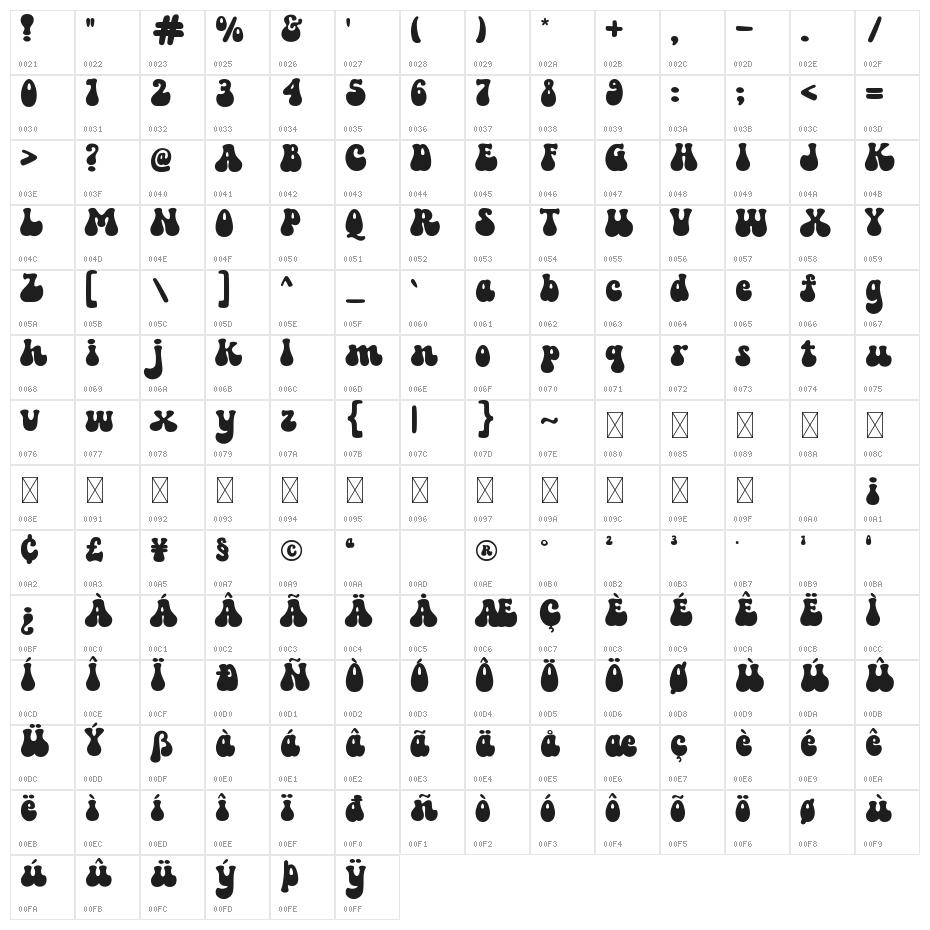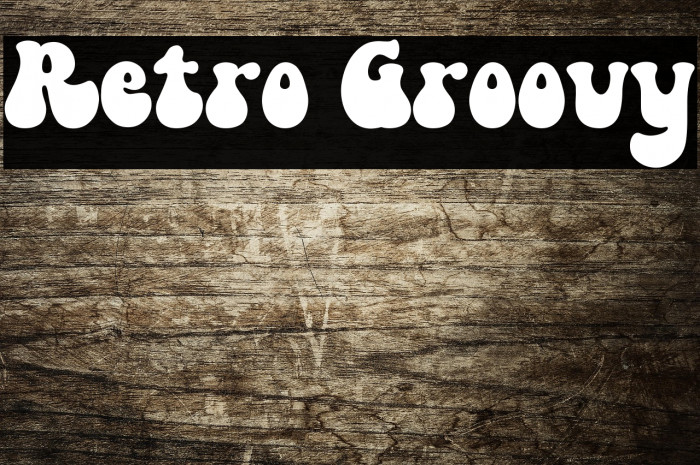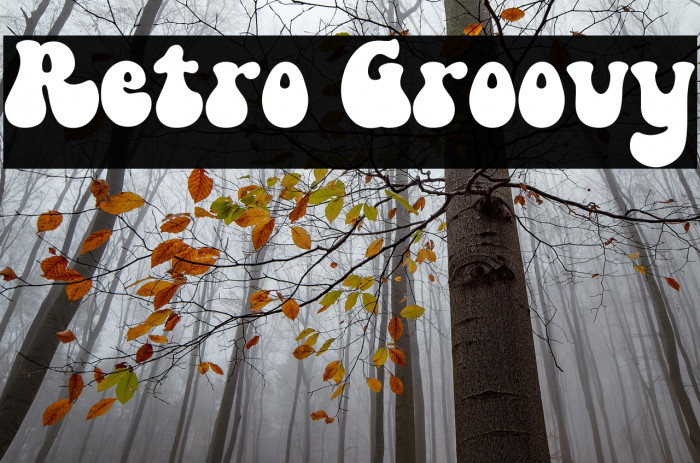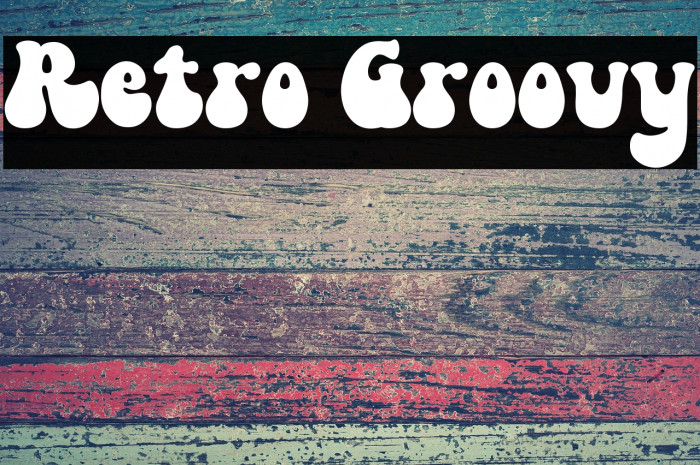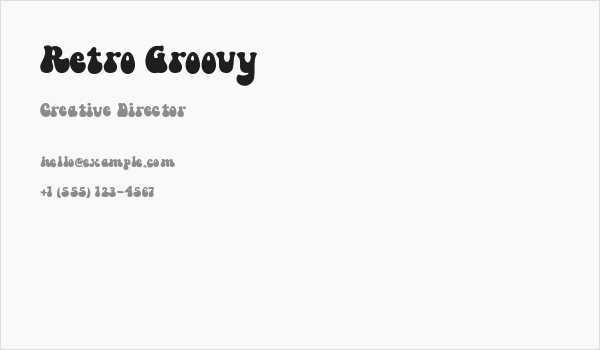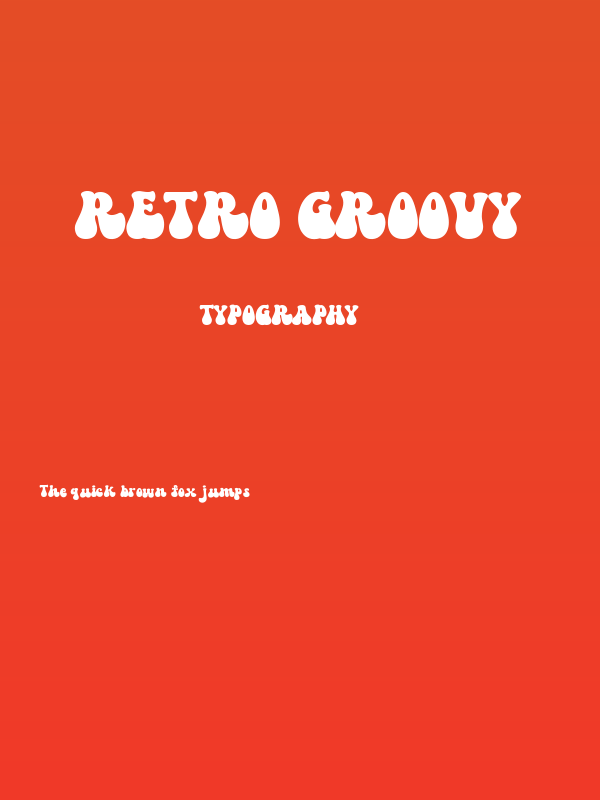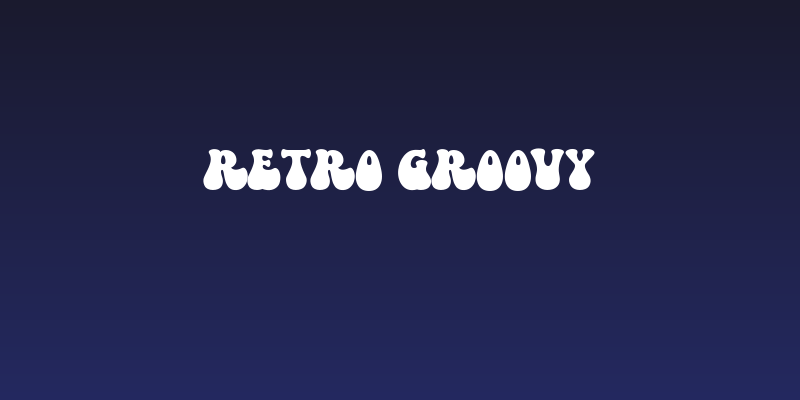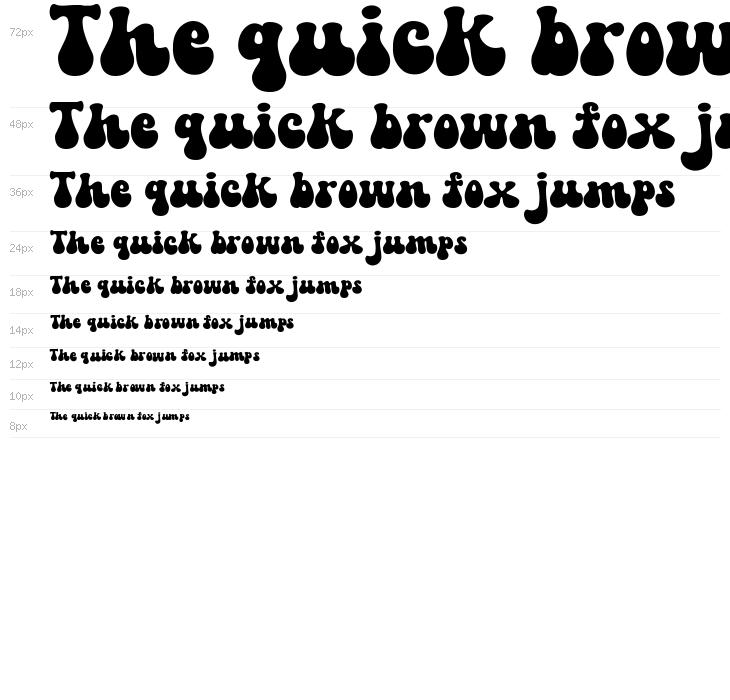
Retro Groovy Font
Retro Groovy Description
This font exudes a playful and retro vibe, characterized by its bold, rounded, and bubbly letterforms. The exaggerated curves and thick strokes give it a groovy, 1960s-inspired aesthetic that is both eye-catching and nostalgic. Each character is designed with a sense of movement and fluidity, making it ideal for projects that aim to capture a sense of fun and creativity. The font's unique style is perfect for creating standout headlines, posters, and branding materials that require a touch of vintage charm.
| Width | Expanded |
| Overall Style | Vintage |
| Proposed Projects | Ideal for retro-themed posters, branding, music album covers, and playful advertising campaigns. |